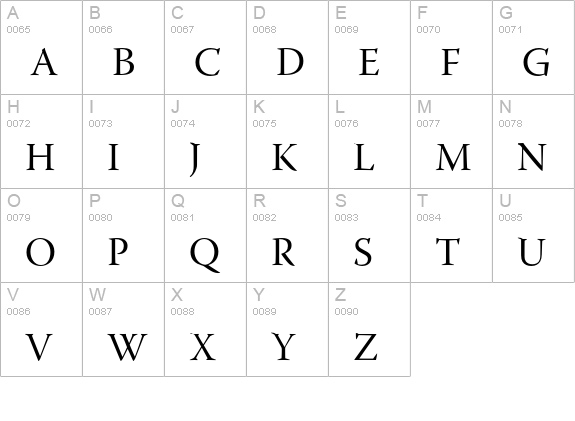
Warnock Pro Subhead Font Details
The Warnock Pro Subhead font is a versatile and elegant typeface that exudes sophistication and professionalism. With its clean lines and well-balanced proportions, this font is perfect for subheadings, captions, and other display purposes. What sets the Warnock Pro Subhead font apart is not only its exceptional design but also its accessibility. It is available for free download at FontsMarket.com, making it an excellent choice for designers and typographers on a budget. Whether you're working on a print project, website design, or branding materials, the Warnock Pro Subhead font will add a touch of refinement and style. Its timeless appeal and versatility make it suitable for a wide range of applications, from corporate presentations to editorial layouts. The Warnock Pro Subhead font features a comprehensive character set, including lowercase and uppercase letters, numerals, punctuation marks, and special characters. Its legibility and readability ensure that your message will be conveyed clearly and effectively. This font is designed with meticulous attention to detail, resulting in smooth curves and harmonious letterforms. Its well-crafted design allows for optimal readability, even at smaller sizes, making it an excellent choice for subheadings and other text that needs to stand out without overpowering the main content. Whether you're a professional designer or a hobbyist, the Warnock Pro Subhead font offers a high-quality typeface that effortlessly combines elegance and functionality. Its expressive nature and refined aesthetics make it a must-have addition to any font collection. Download the Warnock Pro Subhead font for free at FontsMarket.com and unlock the potential to create visually stunning designs that leave a lasting impression.